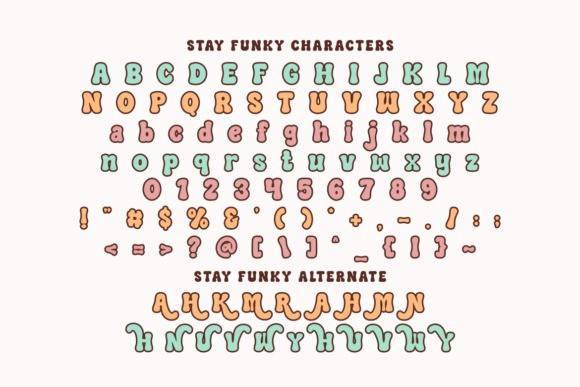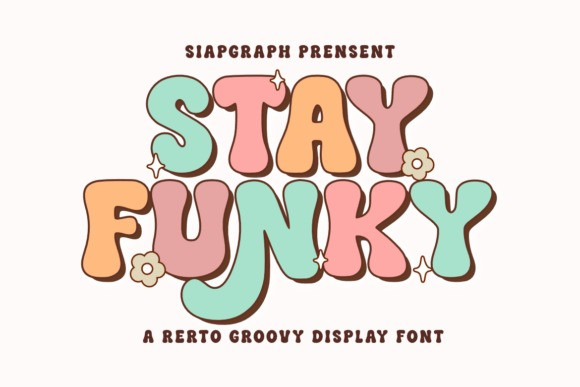
Stay Funky Font
Stay Funky Font a bold retro groovy display font. This typeface features thick, melting curves and a playful 70s aesthetic that radiates energy and personality. Its bubble-like letterforms and soft shadows make it the ultimate choice for vibrant apparel design, nostalgic posters, and eye-catching social media headers. If you’re looking to add a “peace and love” vibe to your creative projects, Stay Funky is your go-to companion.